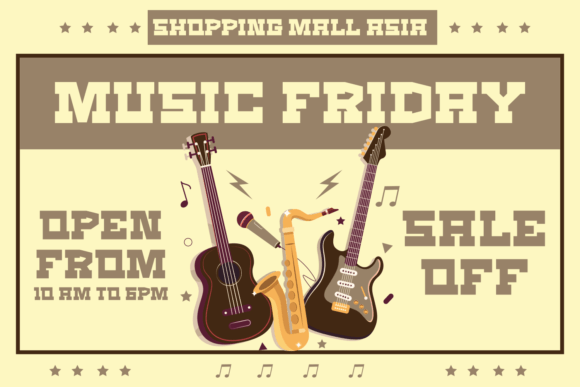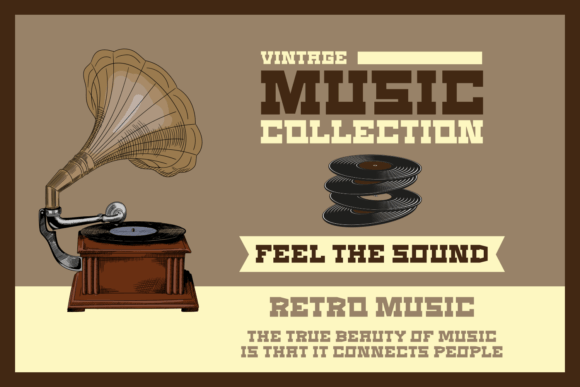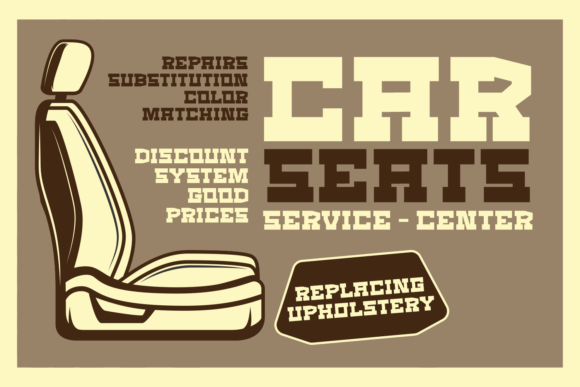
Introduction to Heroes Newbie Font
Have you ever stared blankly at your screen, searching for the perfect font to bring your creative project to life? You’ve scrolled through countless options, but nothing seems quite right. The perfect font can make all the difference in elevating your design and capturing the essence of your message. For designers, finding that perfect font can be a game-changer.
That’s where the Heroes Newbie Font comes in – a bold and assertive serif font that’s sure to leave a lasting impression. With its high-quality design and transparent background, this font is an invaluable resource for any creative project. Whether you’re working on a free download or a paid design, the Heroes Newbie Font is a valuable addition to your design library.
Get ready to unlock the full potential of your designs with the Heroes Newbie Font – a true hero for designers everywhere.
Key Features of Heroes Newbie Font
- High-quality design resource perfect for creative projects
- Heroes Newbie Font comes with a transparent background, allowing for seamless integration with various backgrounds
- Includes 6 unique styles with various weights, making it suitable for a variety of design applications
- Designed with a bold and playful aesthetic, ideal for adding a touch of personality to your creative project
Honest Review: Heroes Newbie Font
As a designer, I’m always on the lookout for unique and high-quality design resources to elevate my creative projects. The Heroes Newbie Font caught my eye, and I decided to give it a try.
What works well: ✨ The font is indeed high-quality and has a fresh, playful vibe that’s perfect for modern design projects. The transparent background makes it easy to use in various design applications. I also appreciate that it’s a free download, making it an excellent resource for designers on a budget.
- Supports a wide range of languages
- Works well in both digital and print design
- Easy to customize and manipulate
However, I did encounter a few limitations: ⚠️ The font library is relatively small, and I found myself wishing for more character options. Additionally, the font can be a bit challenging to read in smaller text sizes.
Overall impression: I’m impressed with the Heroes Newbie Font’s unique design and high-quality feel. While it may not be perfect, it’s a great addition to any designer’s toolkit, especially for free. I’d definitely recommend it for creative projects that require a modern, playful touch.
Heroes Newbie Font: A Comprehensive Guide
Tips for Getting the Most Out of Heroes Newbie Font
To maximize the potential of this design resource, consider the following:
- Experiment with different font sizes and styles to create visually appealing combinations.
- Combine Heroes Newbie Font with other design elements to add depth and variety to your projects.
- Take advantage of the transparent background feature to create seamless designs.
The Heroes Newbie Font is suitable for a wide range of applications, including:
- Graphic design projects
- Branding and marketing materials
- Presentations and documents